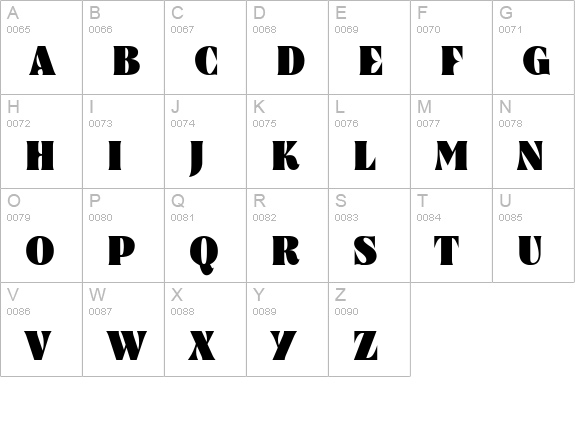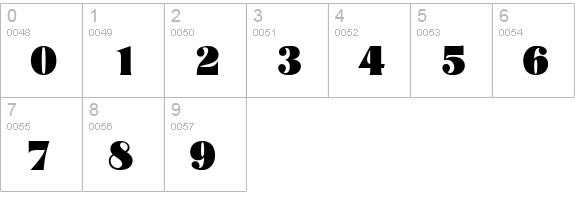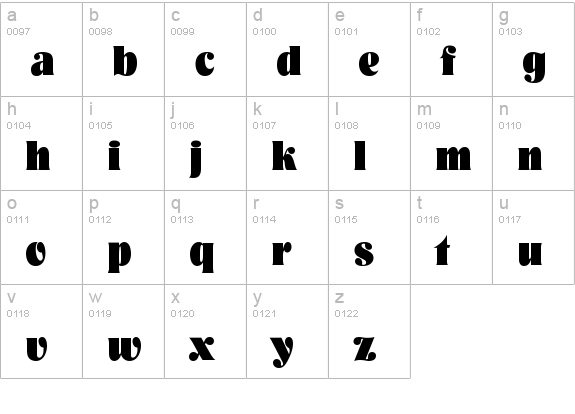
Glenys Display SSi Font Details
Glenys Display SSi font is a stunning and modern typeface that exudes elegance and sophistication. Its sharp edges and sleek design make it perfect for creating eye-catching headlines, titles, and logos. The font's distinctive style is sure to make any design stand out and leave a lasting impression on viewers. Best of all, Glenys Display SSi font is available for free download at FontsMarket.com. Whether you're a designer looking to add a touch of class to your projects or a business owner in need of a fresh new look for your branding, this font is the perfect choice. Don't miss out on the opportunity to enhance your designs with this beautiful and versatile typeface. Download Glenys Display SSi font today and let your creativity shine!